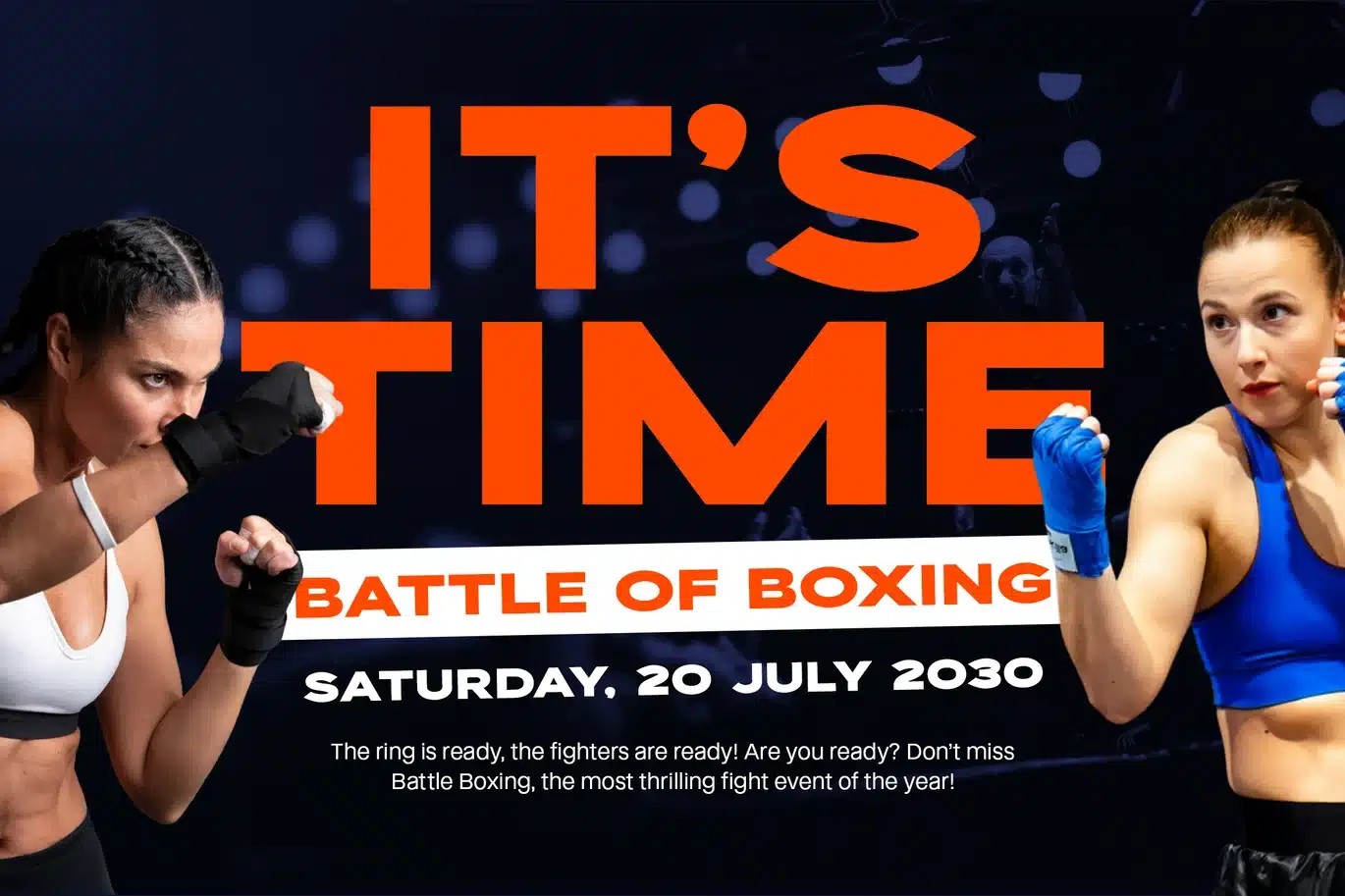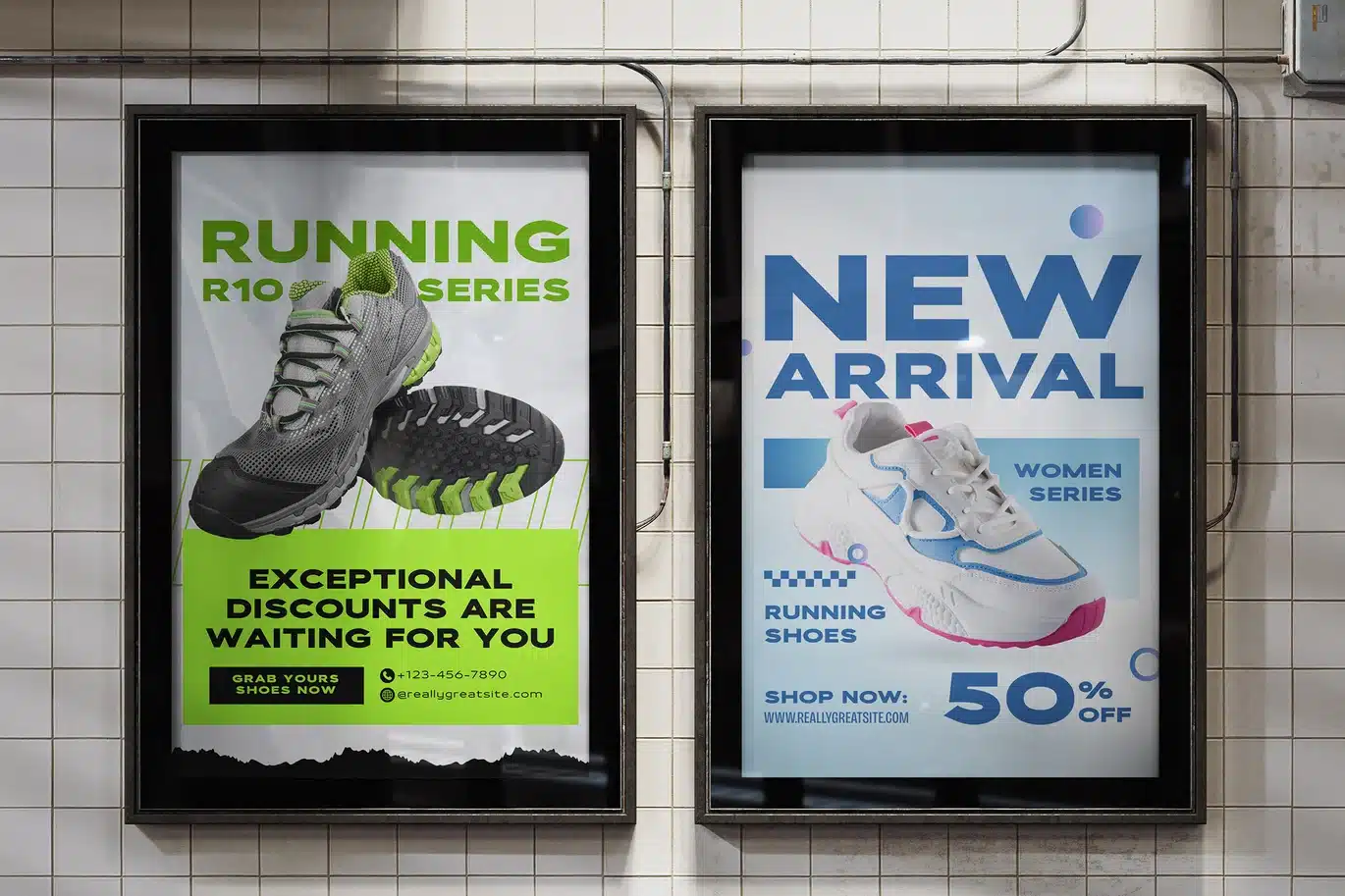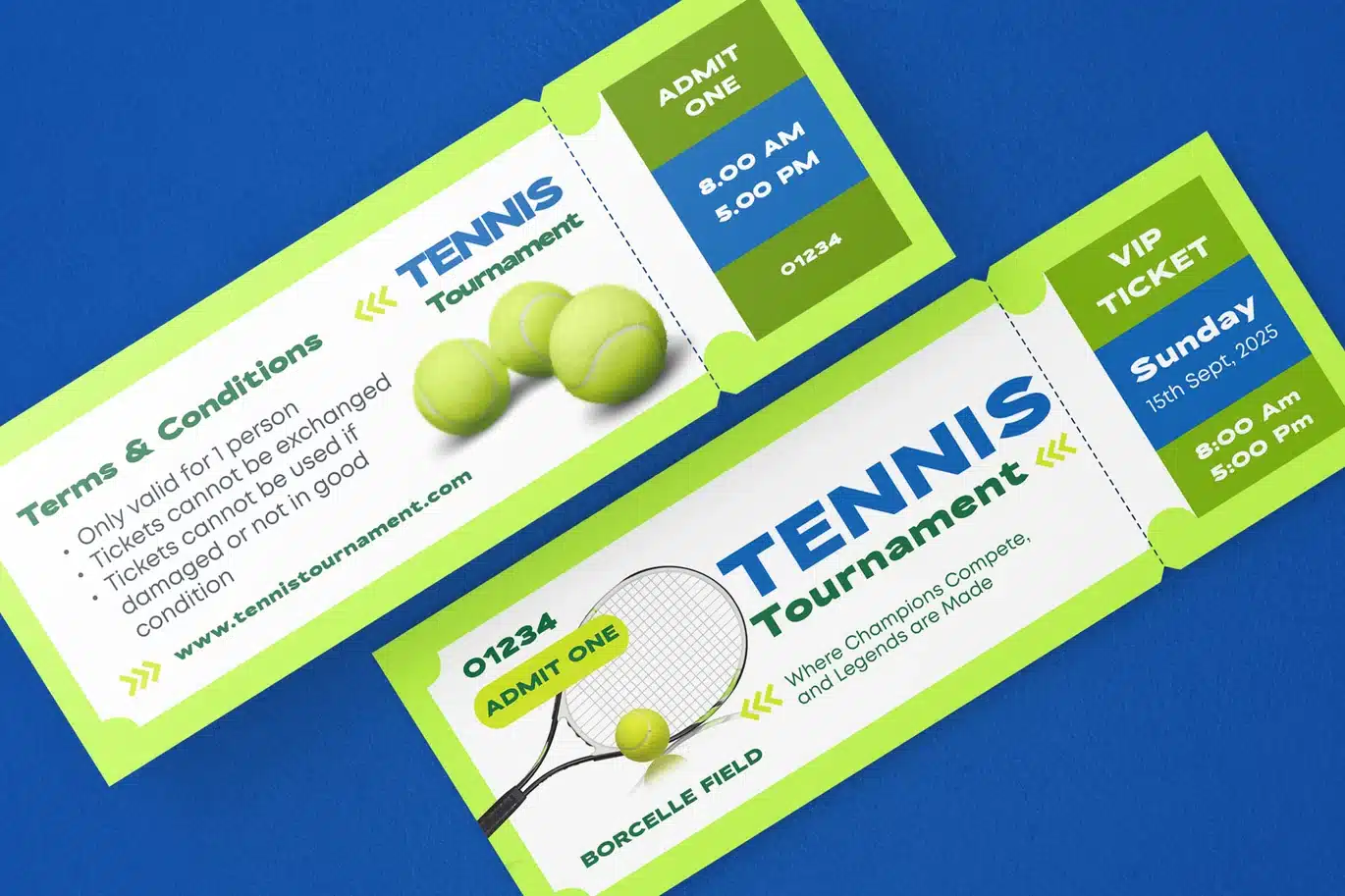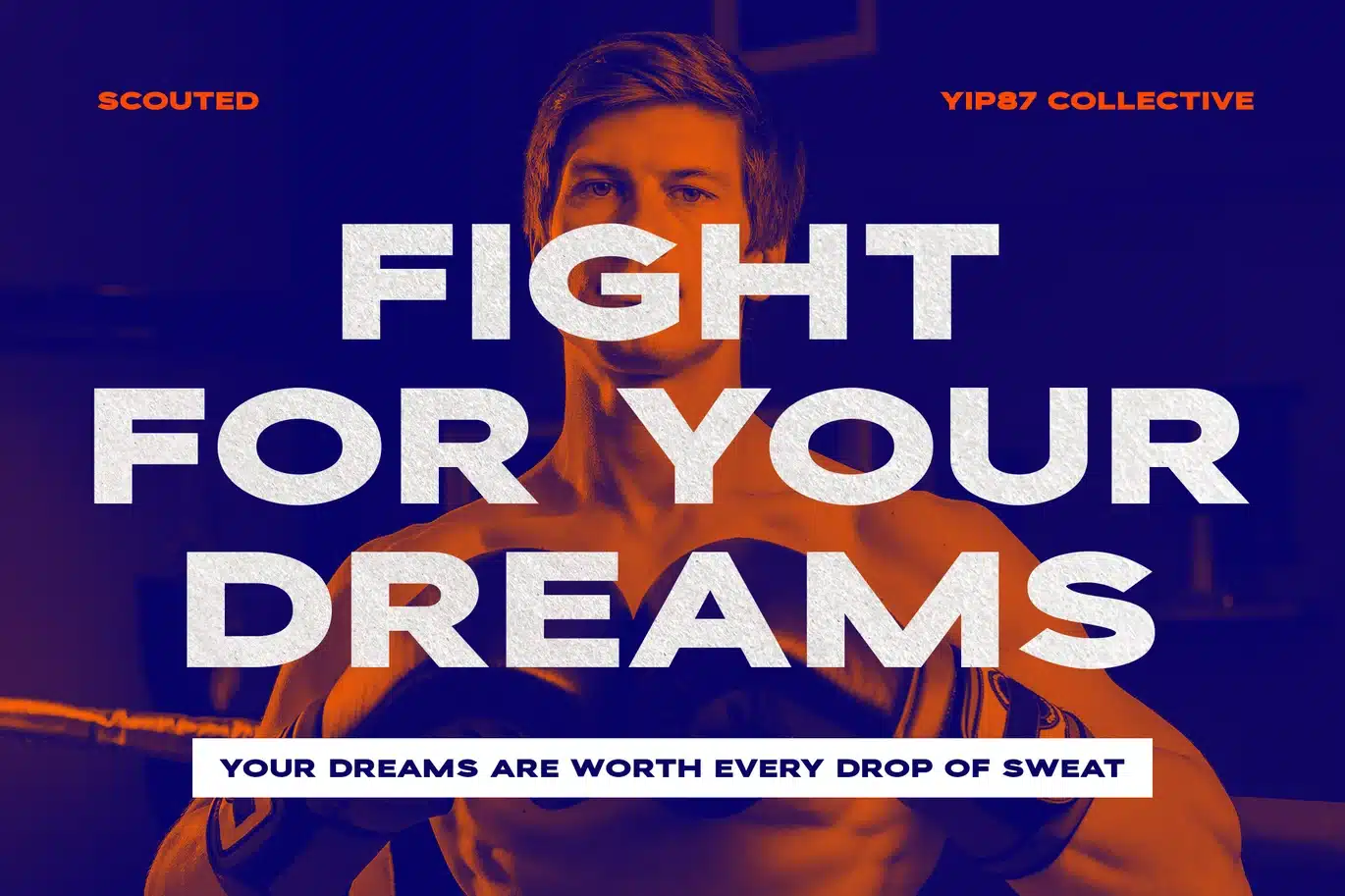
Scouted – Modern Sport Bold Expanded Logo Font
Scouted - Modern Sport Bold Expanded Sans Serif - Logo and Display Font
Scouted is a Clean Minimalist Modern Expanded Bold Sans Serif, designed specifically for logos, branding, headers / headline, game, music, techno, urban, college, race car and sport branding.. Scouted is impactful and timeless logos and branding materials. Wavers Font ensures your designs make a lasting impression. Elevate your branding design projects with Scouted Font today.